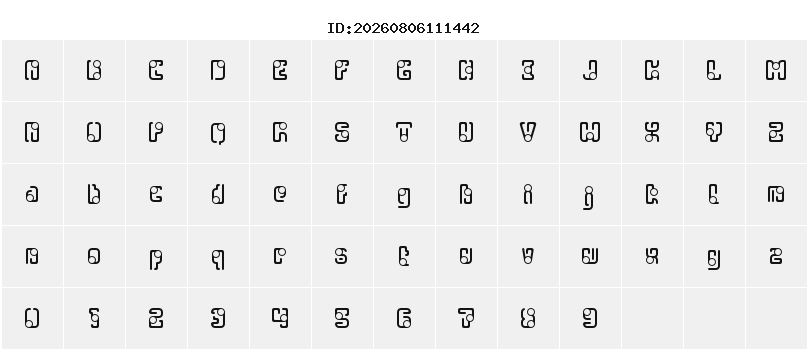
• Font Name: Orbital Flight
• Designer: Paul Bokslag
About Orbital Flight.otf
Orbital Flight.otf is a modern, elegant sans-serif font designed for ultimate readability and visual harmony. Perfect for branding, headlines, web design, and print materials.